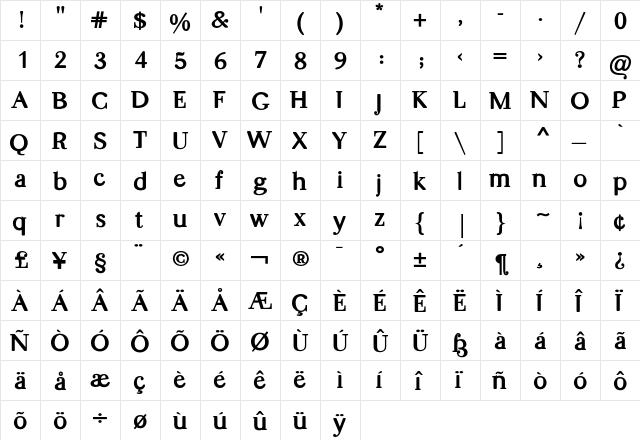
Leash XL Font Preview
Leash XL
Design Context for Leash Typeface
Leash is a composed and adaptable typeface that performs quietly and consistently across a wide range of design contexts.
Pro Tip: Pair Leash with a font of contrasting weight or personality to build a more expressive typographic hierarchy.